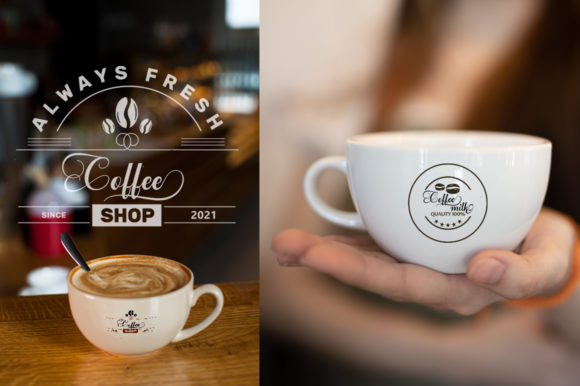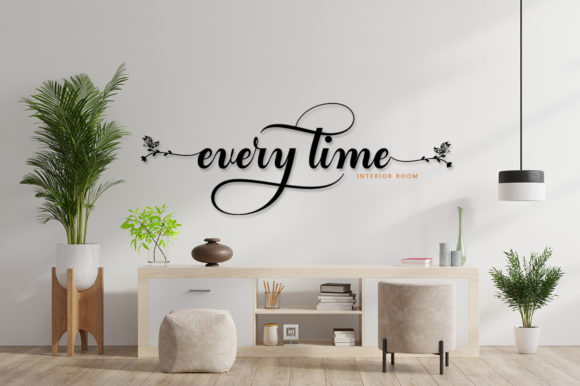
Faithfull Font
db-ku.com - Script & Handwritten -- Faithfull is a stunning handwritten font. Fall in love with its incredibly versatile style and use it to create gorgeous wedding invitations, beautiful stationary art, eye-catching social media posts, and much more!